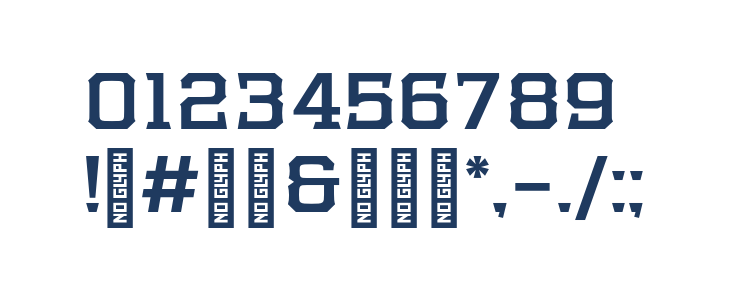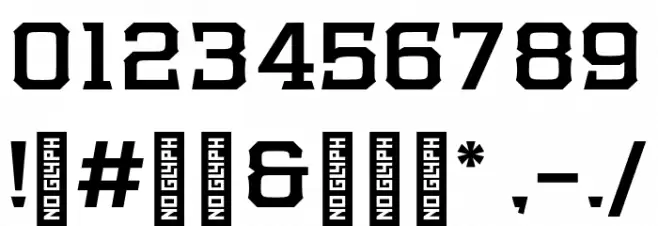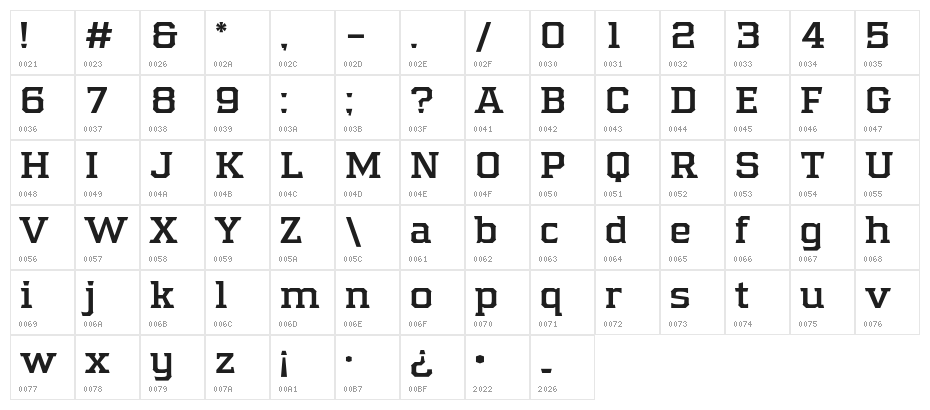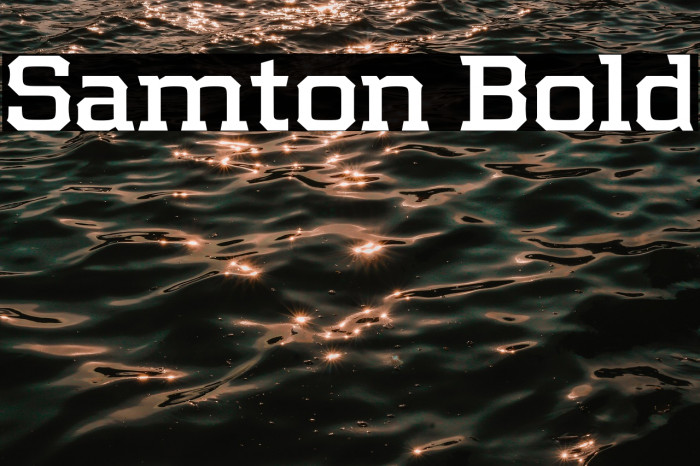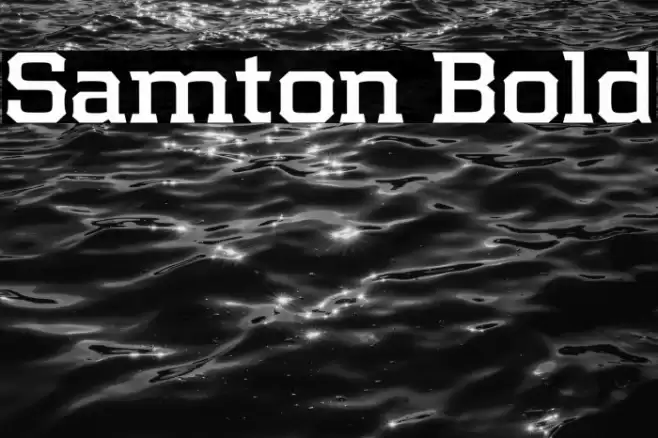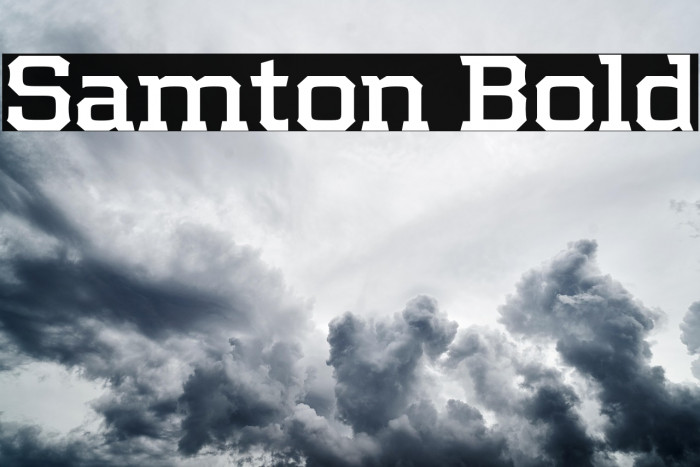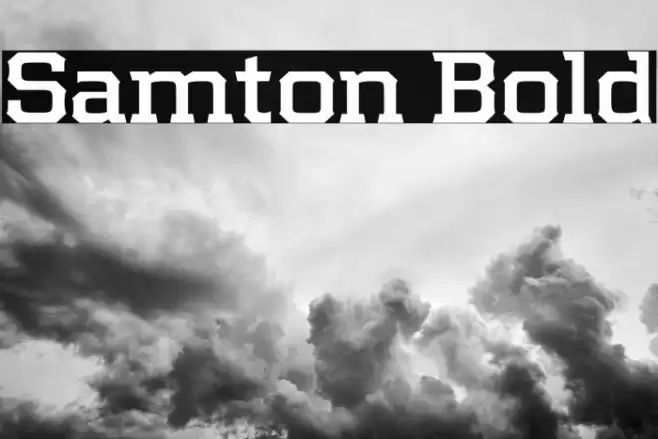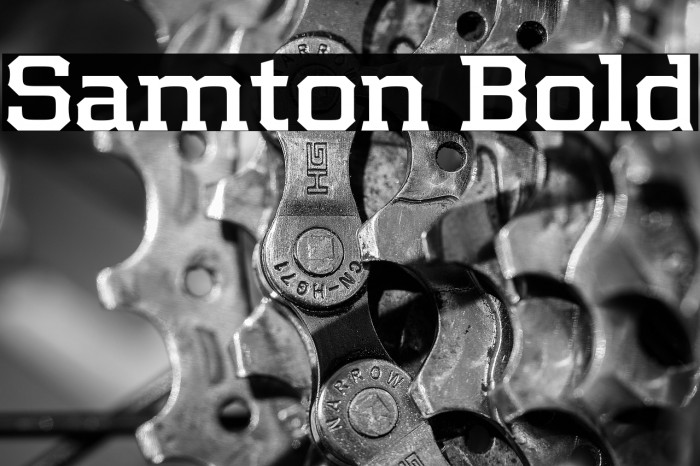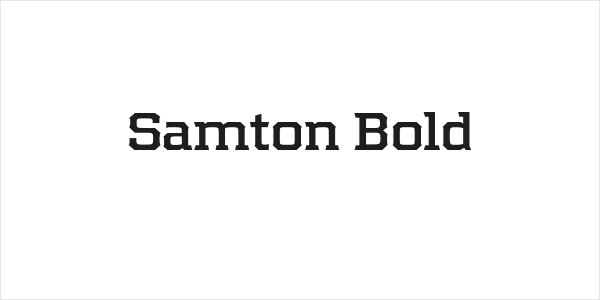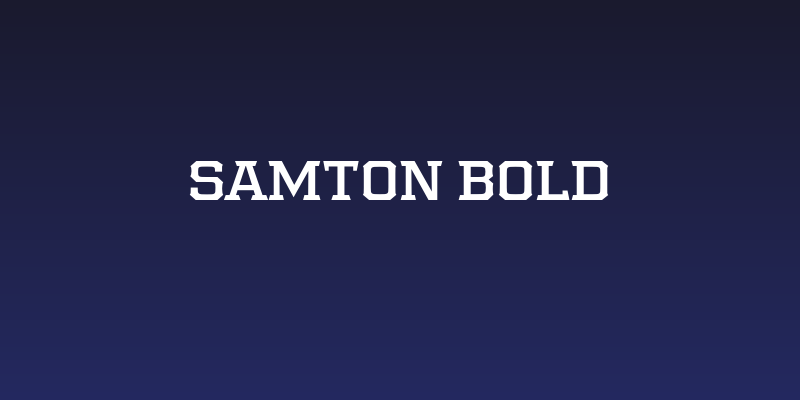
Samton Bold Font
Samton Bold Description
This font features a bold, slab serif style with strong geometric shapes and a commanding presence. The uppercase letters are characterized by their thick, block-like serifs and uniform stroke widths, giving them a sturdy and robust appearance. The lowercase letters maintain the same boldness, with slightly rounded edges that add a touch of softness to the overall design. Numbers are equally bold and consistent, ensuring readability and impact. The font's style is reminiscent of vintage typefaces used in posters and signage, making it ideal for projects that require a bold statement.